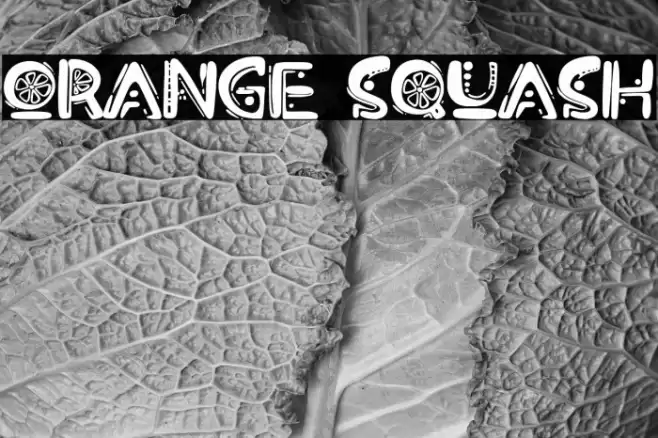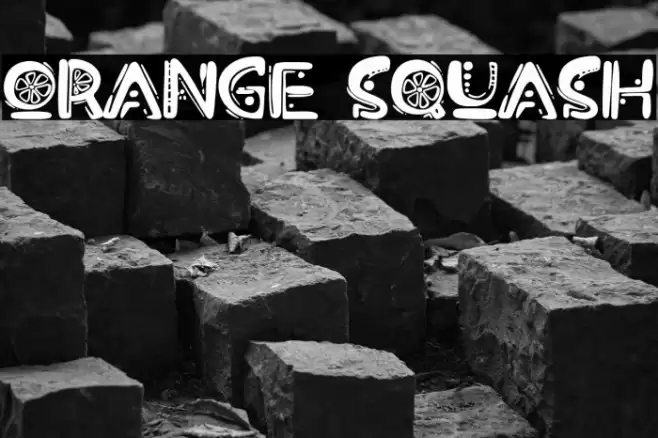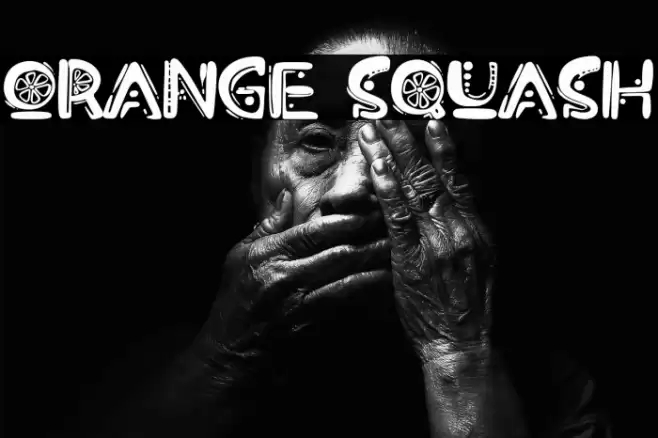
Orange Squash Font
Orange Squash Description
This playful and decorative font features bold, rounded characters with unique, whimsical elements incorporated into each letter. The design includes fun, citrus-themed accents, such as slices and seeds, adding a lively and fresh feel. The uppercase and lowercase letters maintain a consistent style, with a slightly irregular and hand-drawn appearance that enhances its charm. Numbers and special characters follow the same playful theme, making it ideal for creative and informal projects.
A playful, citrus-themed decorative font with bold, rounded characters from Uncategorized fonts.
- Proposed Projects: Perfect for children's book covers, playful branding, party invitations, and summer-themed posters.